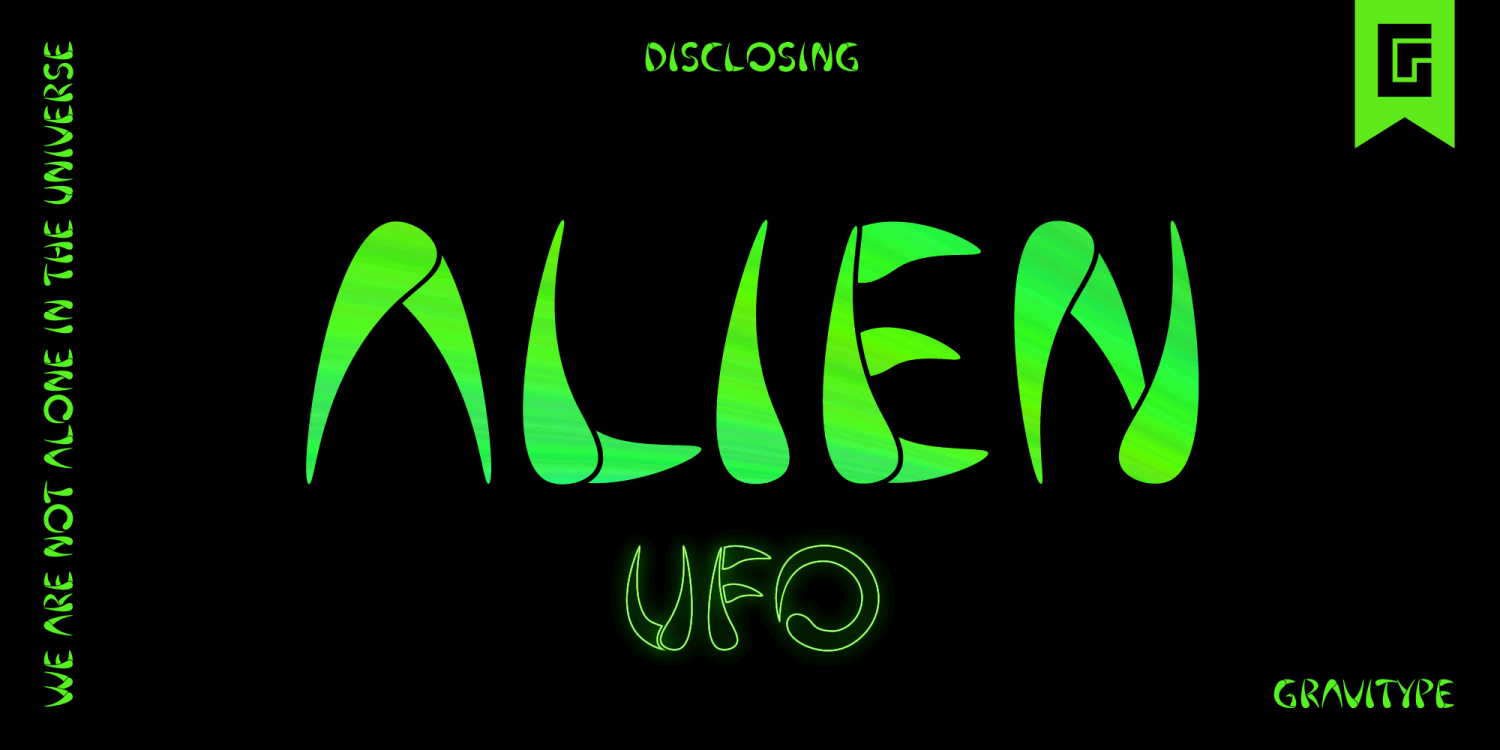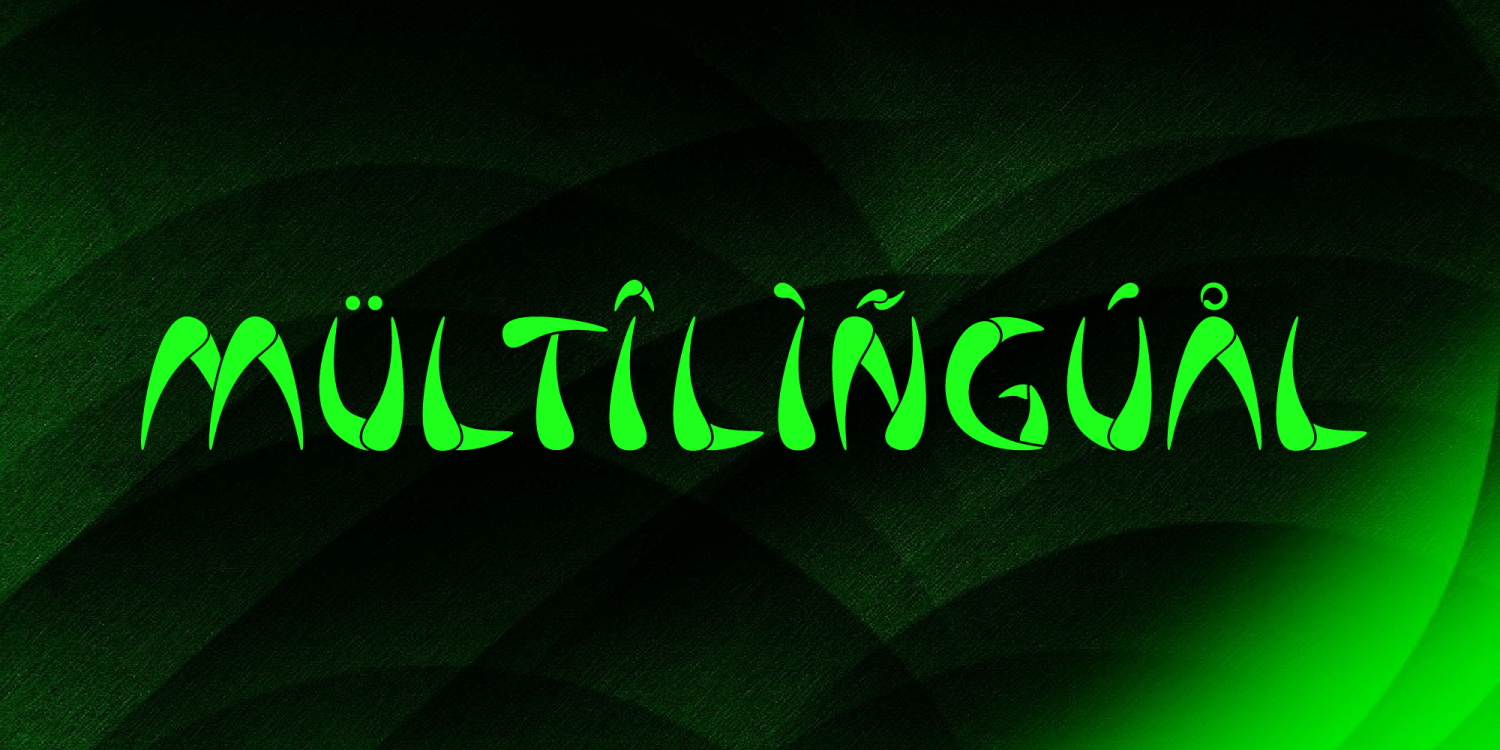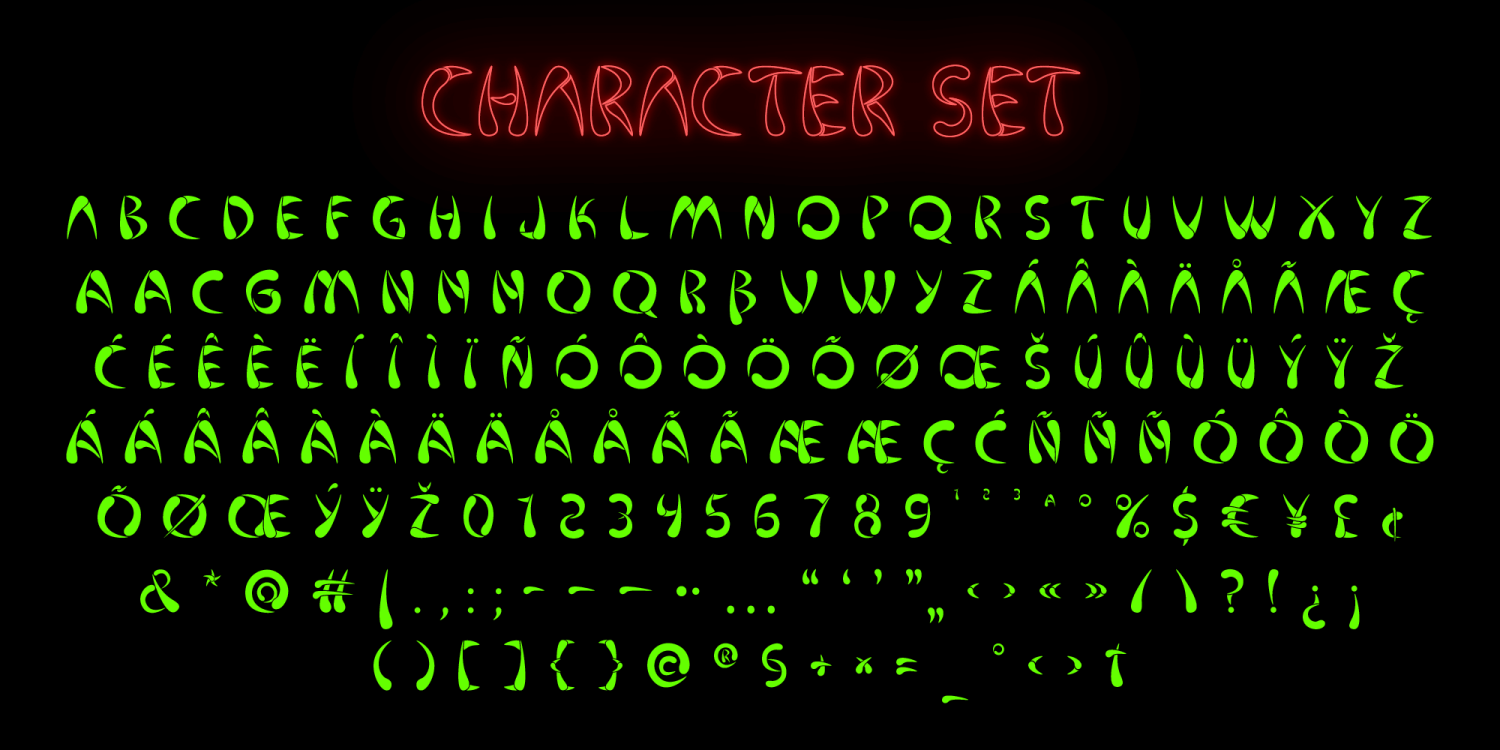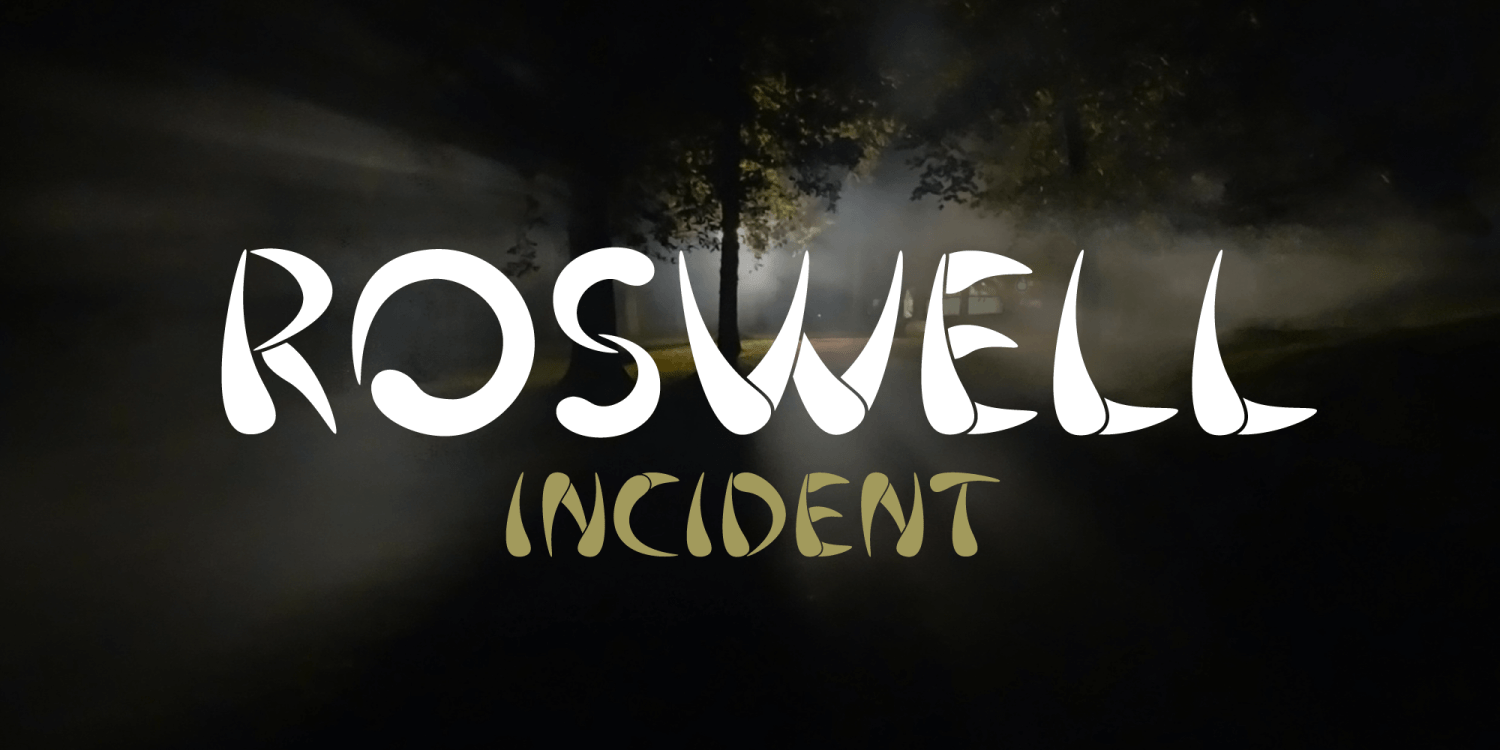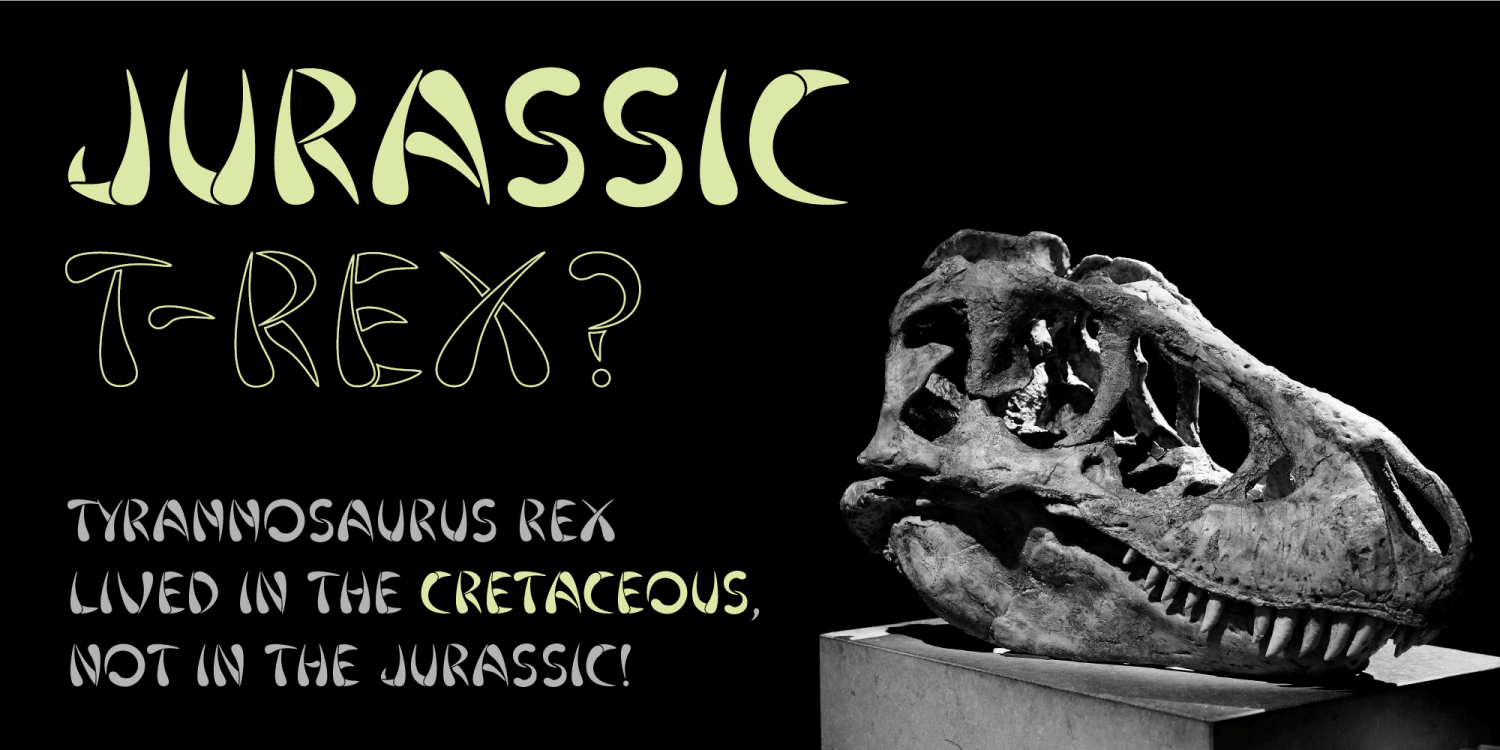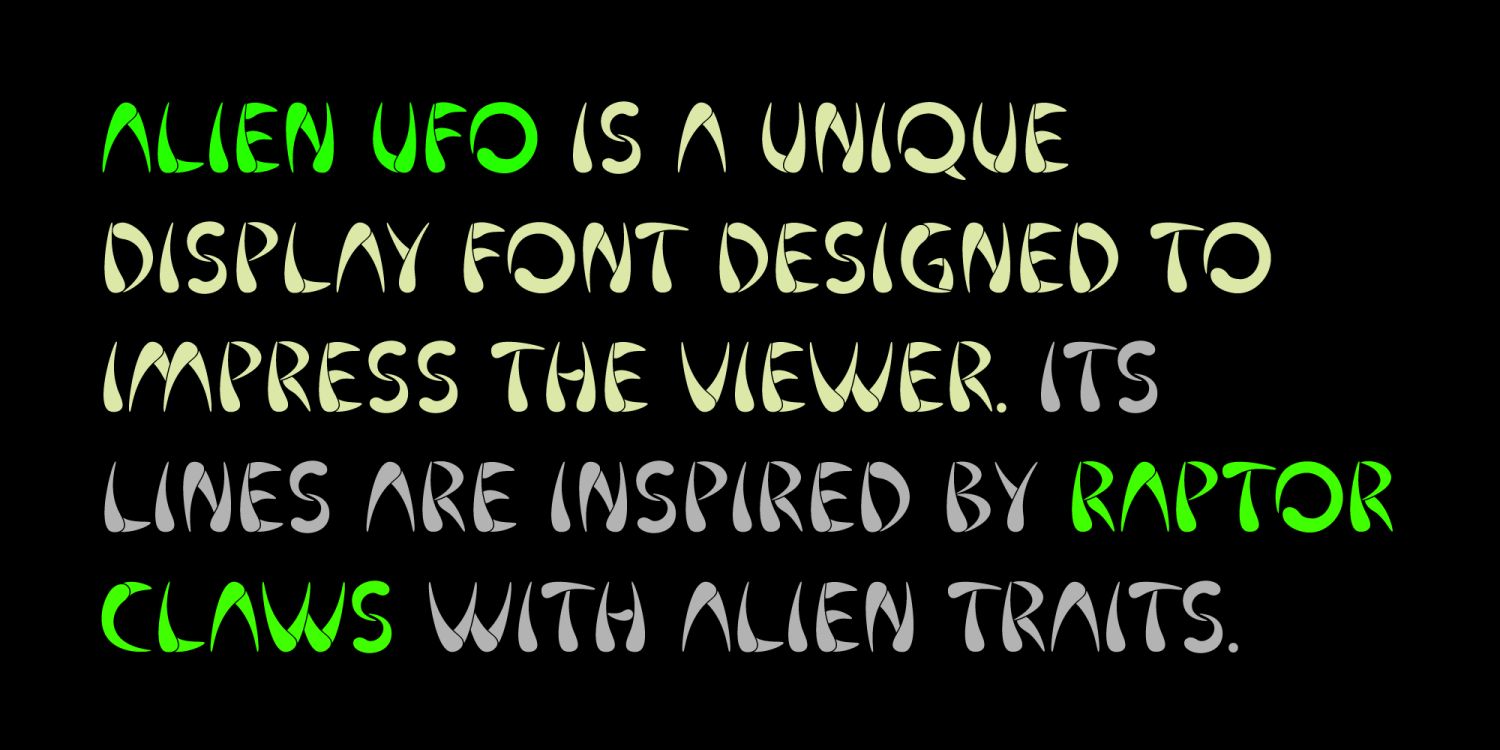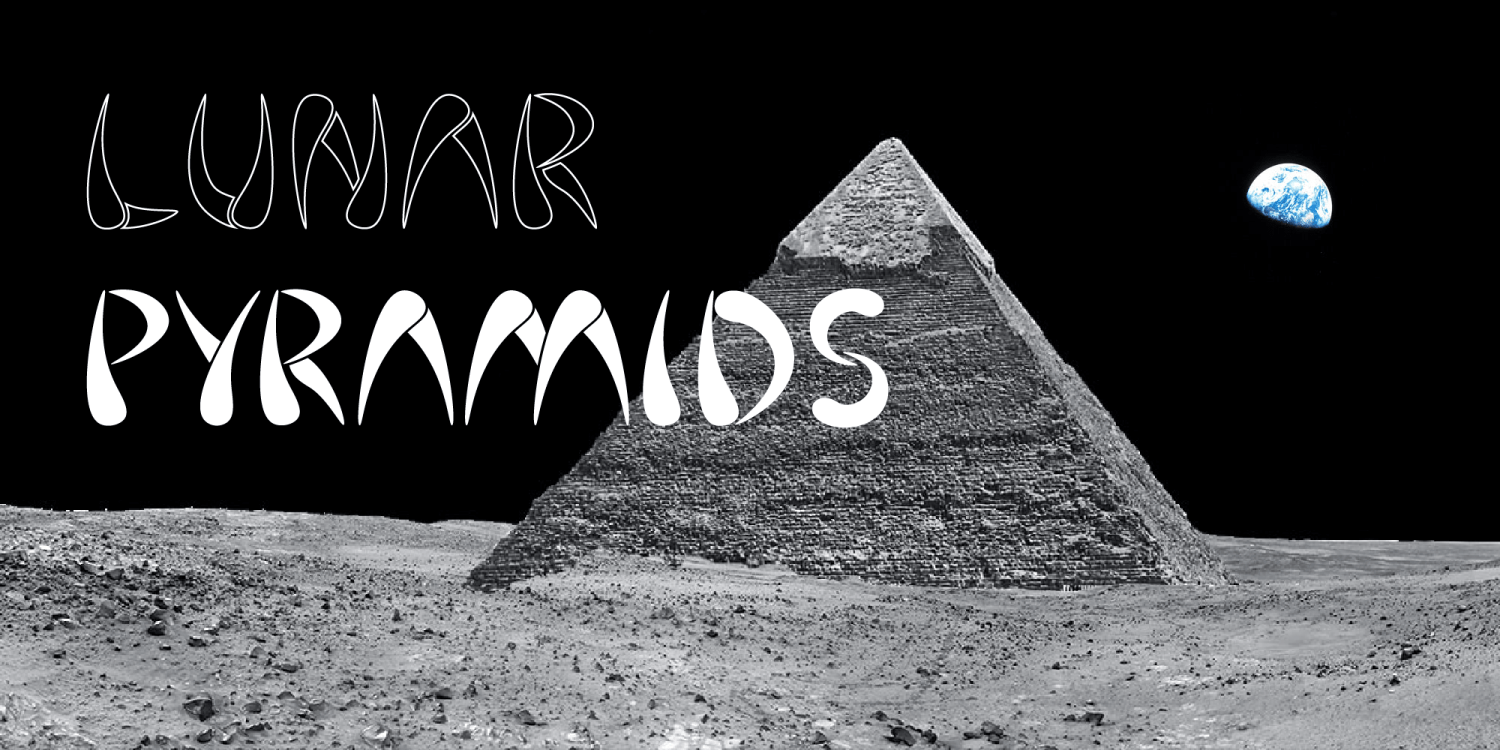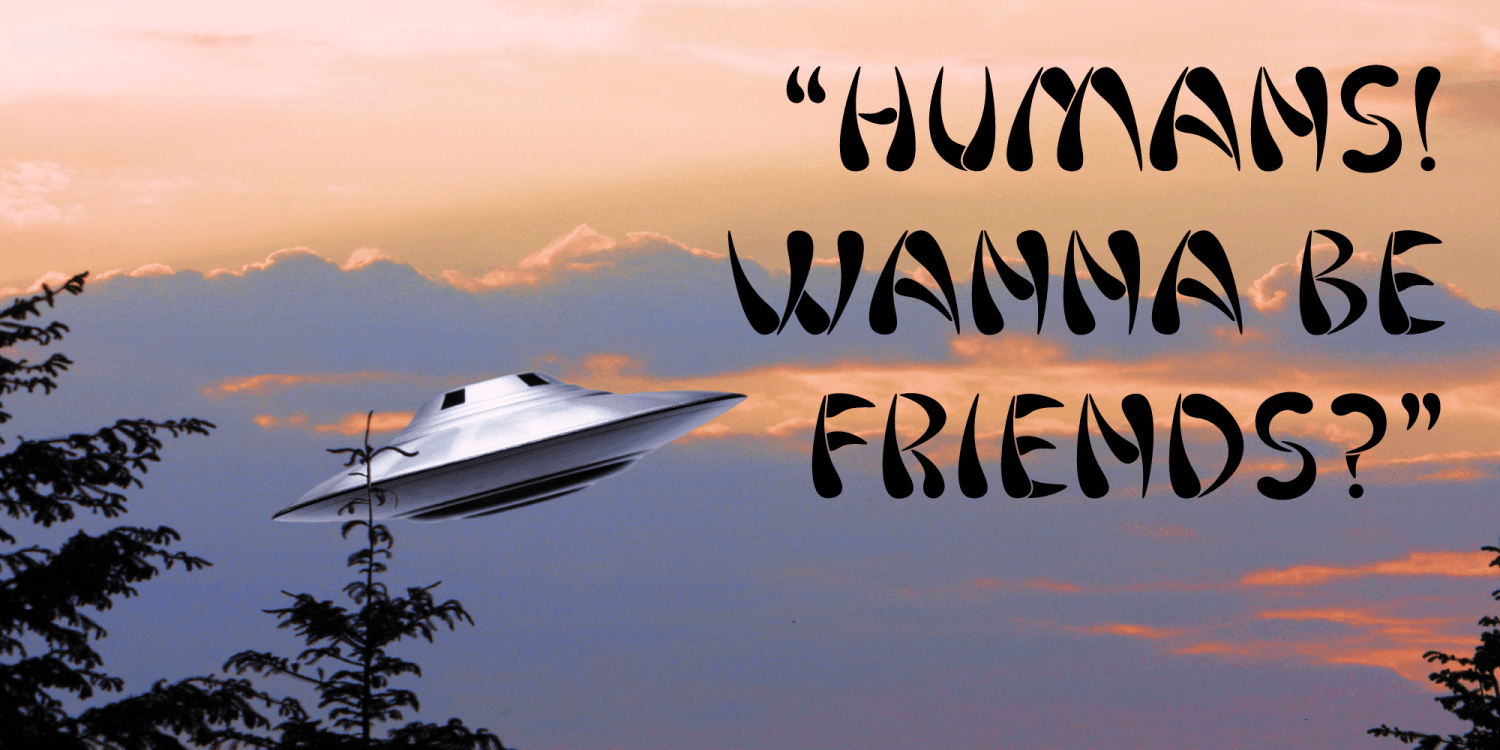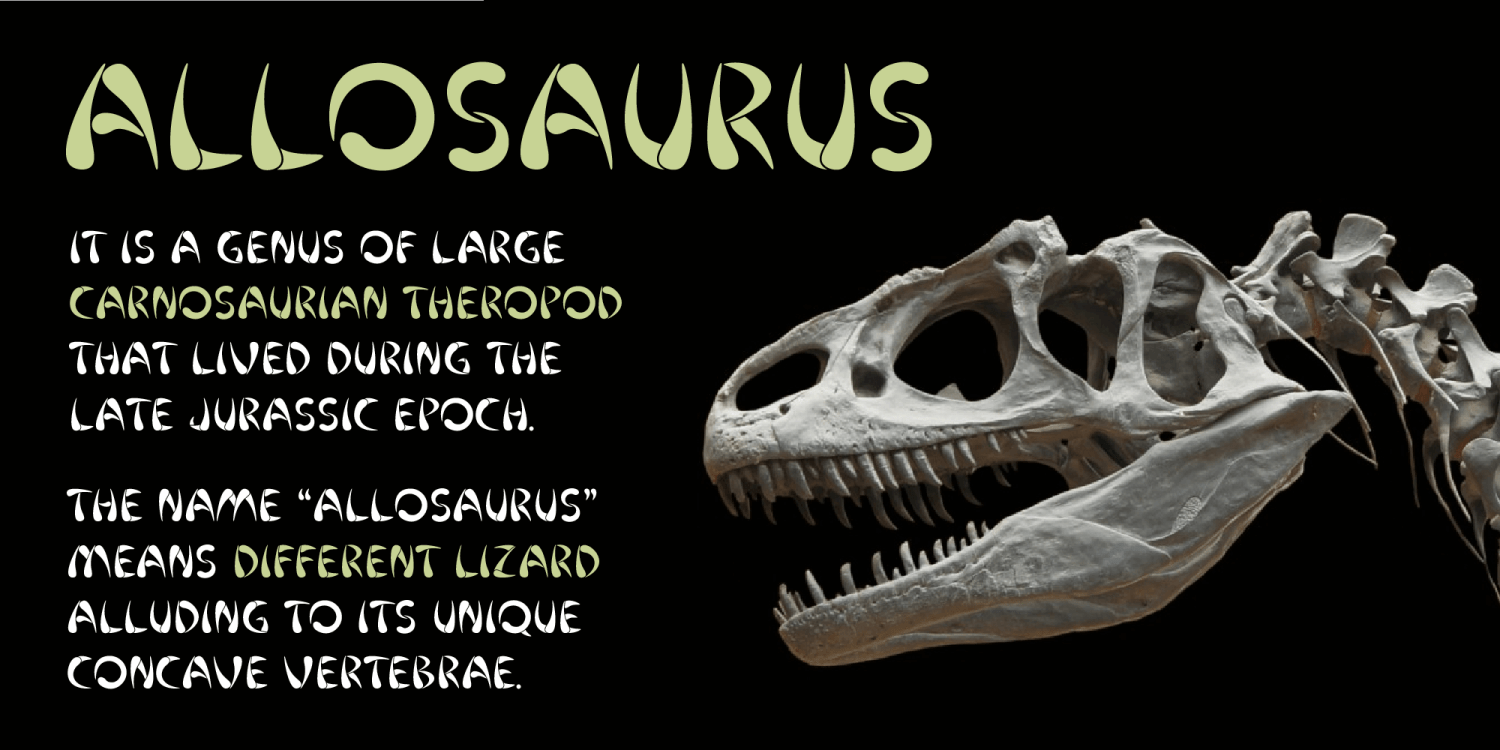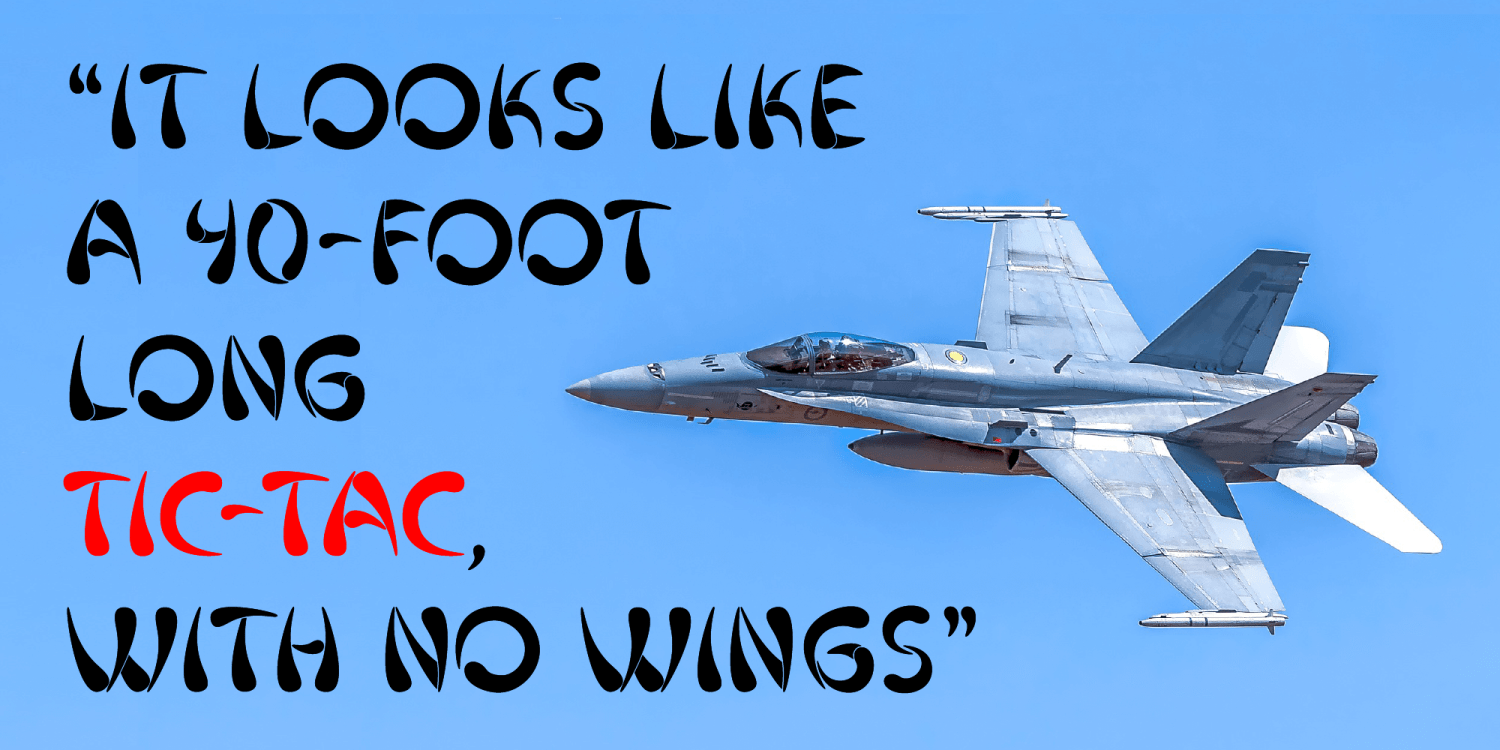
Alien UFO
Alien UFO is a particular display font born from the fusion between raptor claws and alien traits.
The standard characters have been conceived to look more aggressive, to wonderfully fit the atmosphere when tension is needed, to highlight the sense of unknown, mystery, fear.
A lot of alternative glyphs are included to give you more aesthetic options and cover a wider spectrum of emotions to convey to the situation.
It is very appropriate to be integrated in prehistoric environments and anthing related to dinosaurs/fossils.
The outline version can be mixed with the regular one to create contrast with the filled glyphs. It results particularly eye-catching when a neon effect is applied.
Multiple languages are supported.